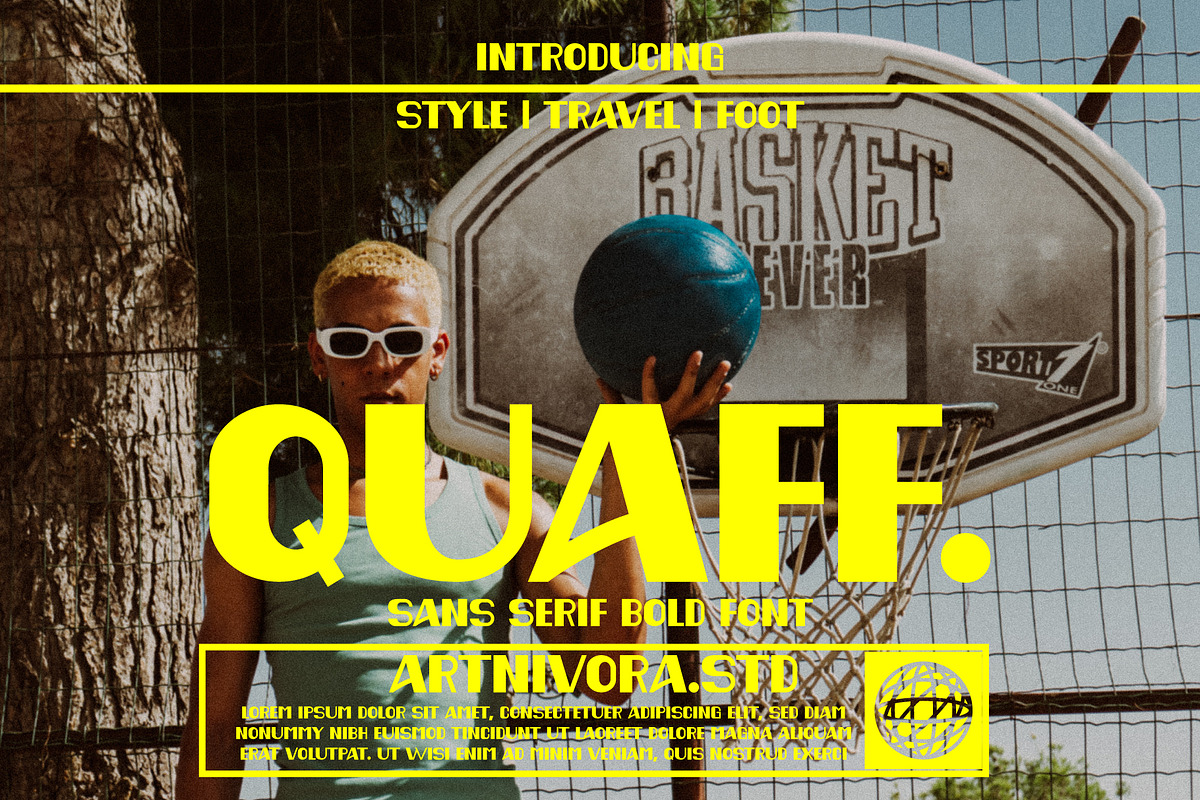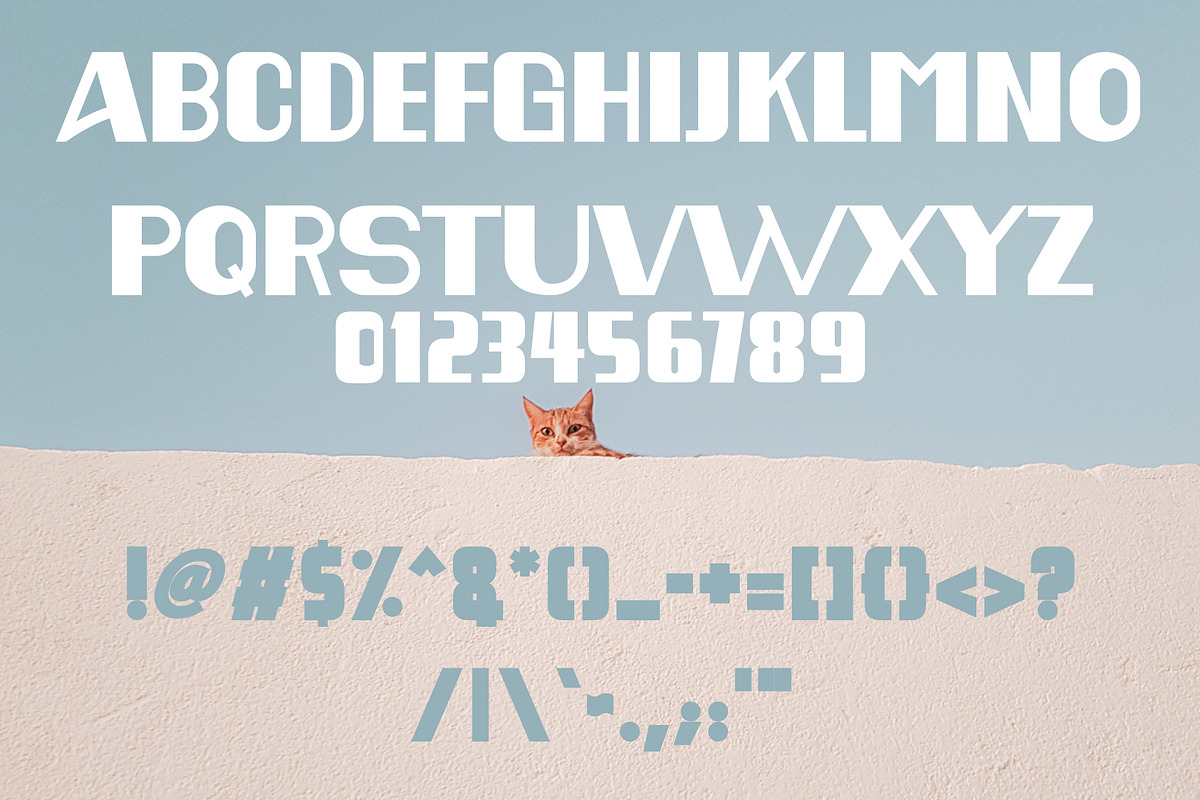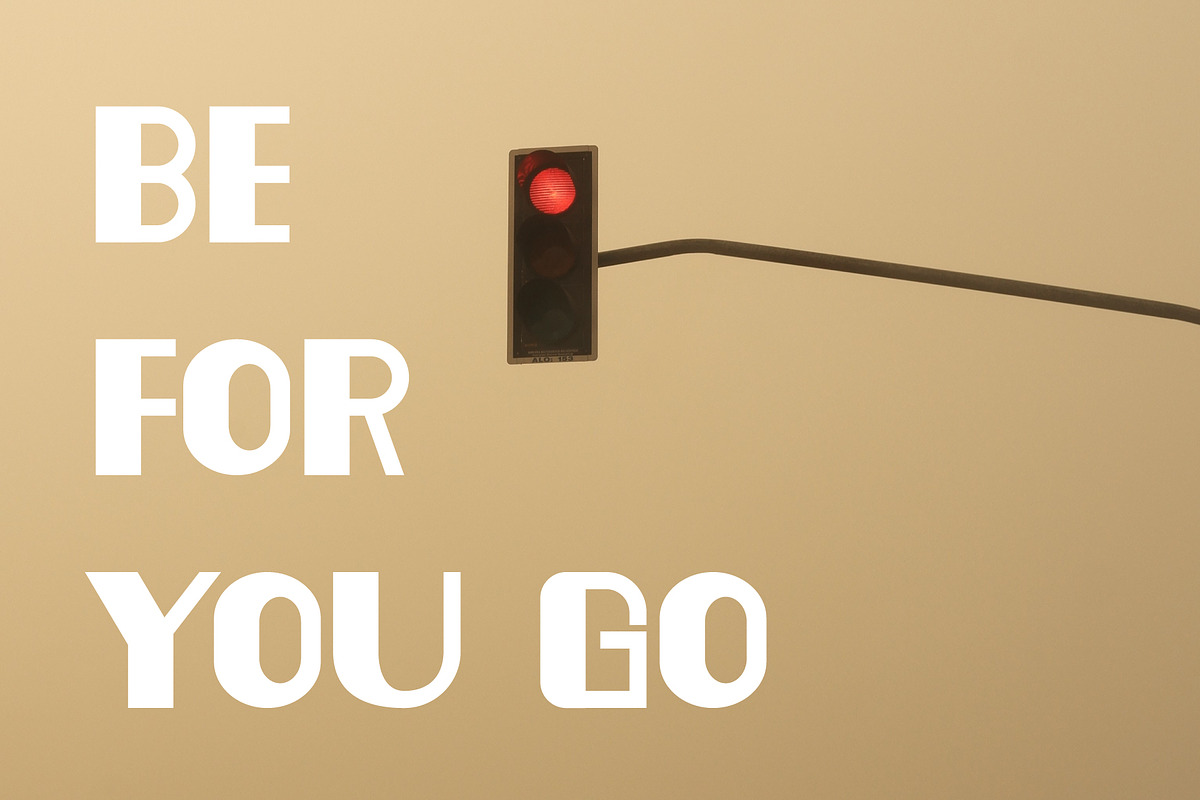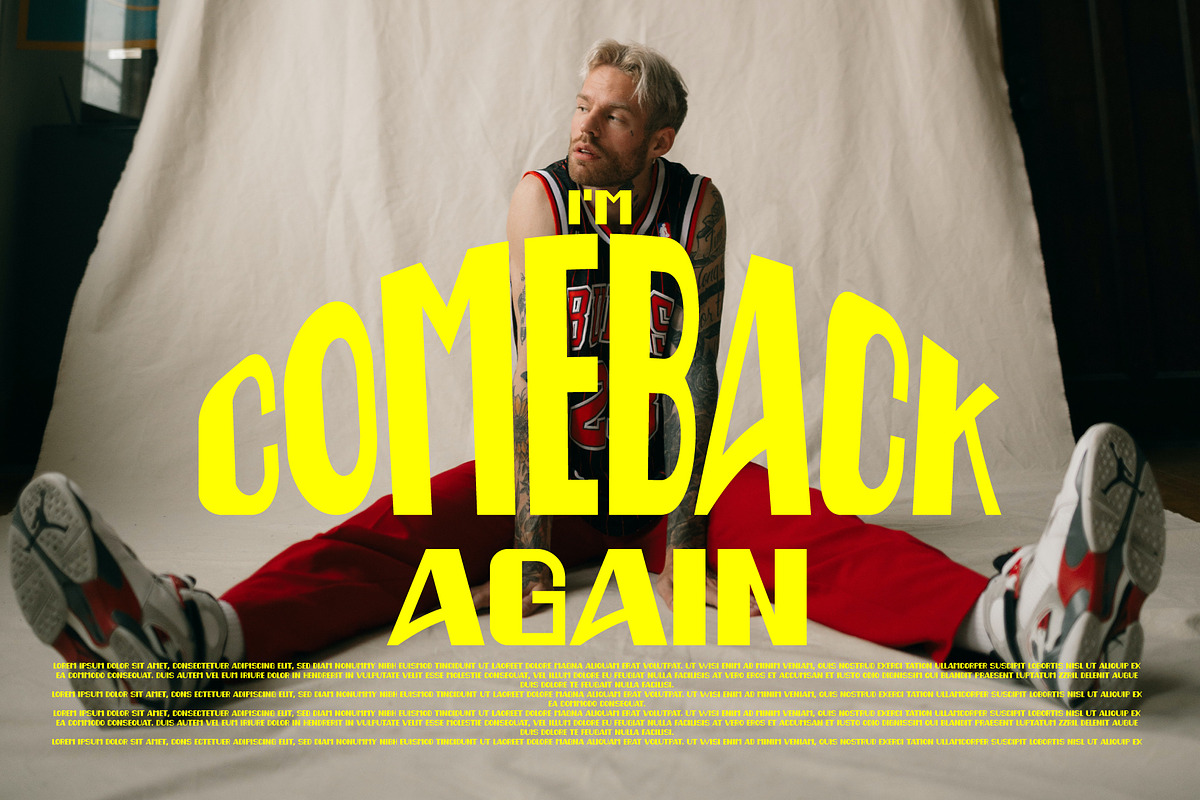
Quaff - Bold Font
Introducing Quaff, a bold and unique sans serif font. So perfect for you who needs a typeface for logo designs, magazine, social media, brochure, and many more.